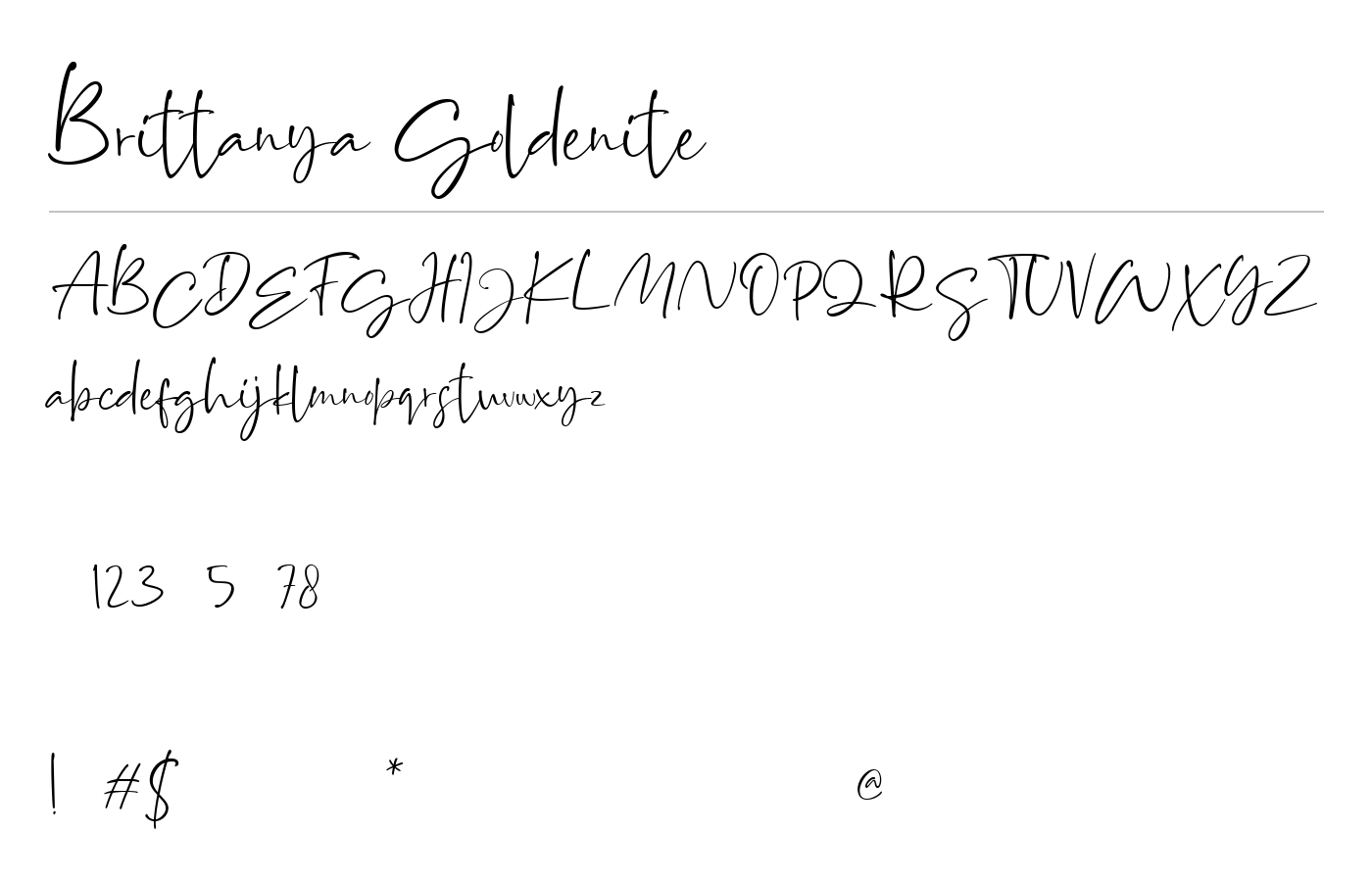
Brittanya Goldenite is a delicate, handwritten script font with a light weight and an airy feel. Its thin, flowing strokes create an elegant and feminine appearance, making it ideal for invitations, branding, and lifestyle designs that seek a personal and stylish touch. This font works best in headlines or display uses where a graceful and modern hand-drawn look is desired.
Brittanya Goldenite Font
About Brittanya Goldenite Font